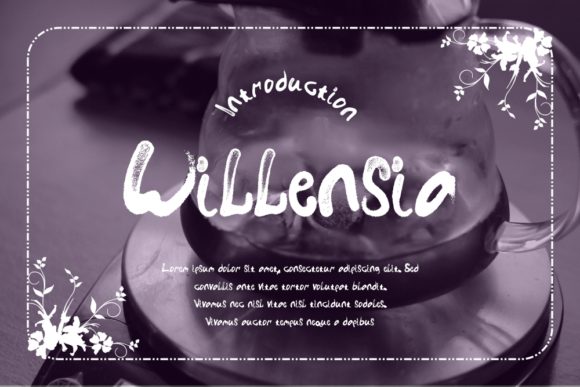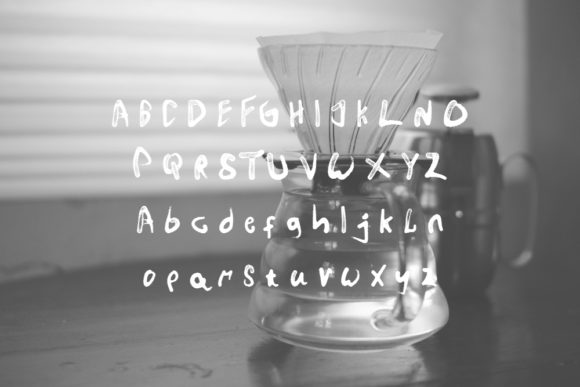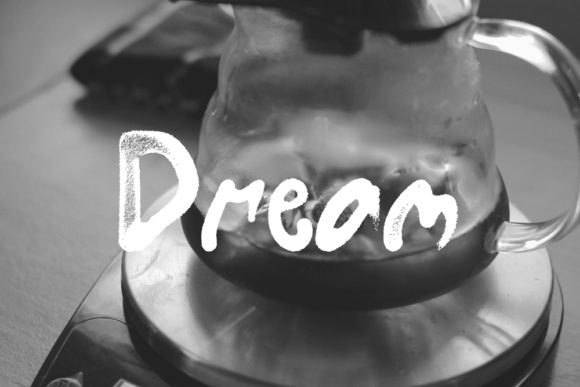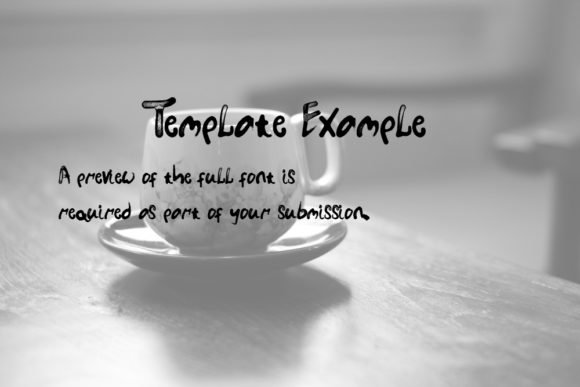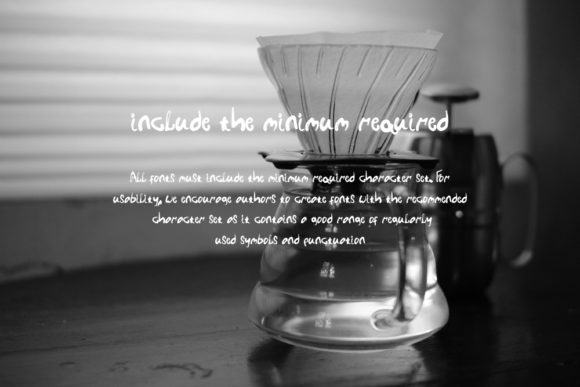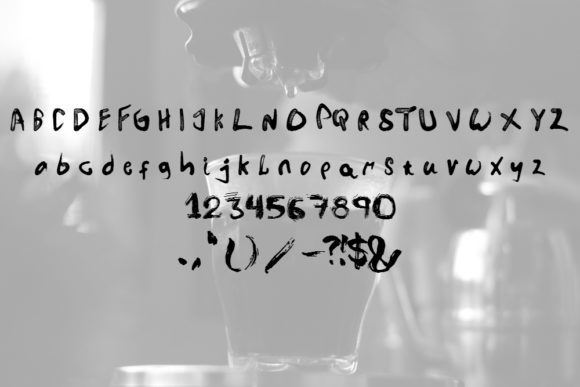
Willensia Font
About Willensia Font
Willensia is a sweet handwritten font, designed with the help of a brush pen. A bit quirky, this font is incredibly fit for a wide variety of creative ideas!